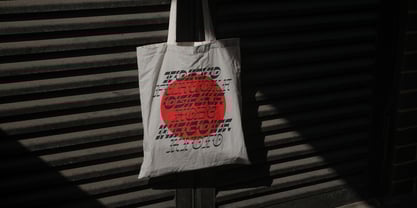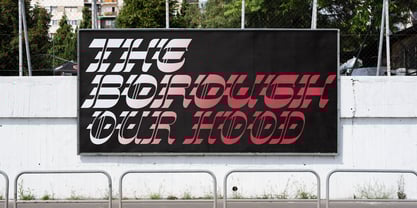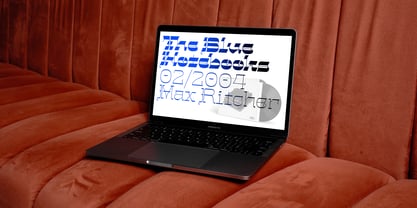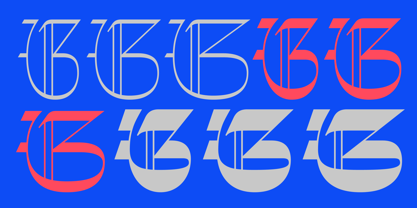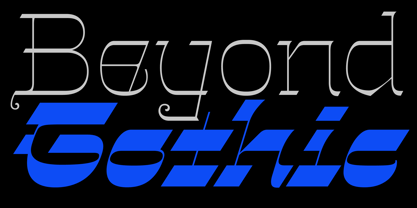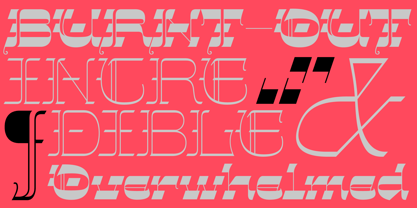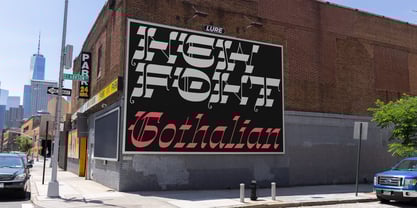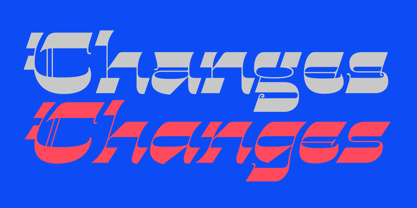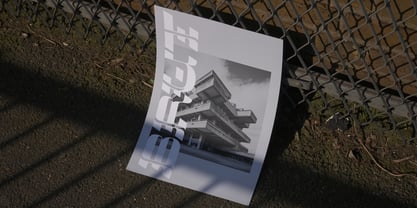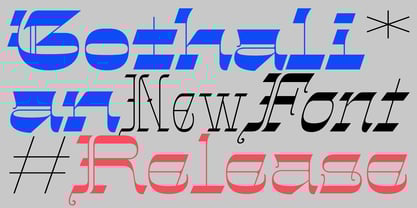
Gothalian
von Sudtipos
Introducing the "Gothalian" font, a blackletter design influenced by the timeless elegance of Victorian ornamentation. This font takes its roots in Henry Brehmer's 1890s metal type published by George Bruce's Son & Co. We have revived the vintage source material with the ornate ironwork of the late 19th century, extrapolating the essence of the past to create a font that showcases a sophisticated and attractive look. The font boasts elaborate details inspired by the Victorian era, combined with a touch of darkness that adds a unique and captivating aura to your designs.
Its unique style makes it stand out and will give your designs a memorable look. The font is available as a versatile variable font and also in 54 static styles: 9 weights, 9 expanded weights, 9 extended weights, and their matching italics. It includes numerous alternates that provide endless design possibilities, along with a full set of characters covering a wide range of Latin-based languages.
The name "Gothalian" is a mix of two terms: "Gothic," which refers to the style of blackletter typefaces that were prevalent in medieval Europe, and "Italian," which describes reversed contrast typefaces in the 19th century. This combination of influences creates a unique and striking aesthetic that captures the essence of both historical styles.
We envision a wide range of uses for the font, including tattoos, headlines, logotypes, book covers, and invitations, infusing your designs with a touch of elegance, history, and mystery. With its Victorian influence over a gothic design, the "Gothalian" font is a harmonious blend of styles that is sure to make a statement in your designs.
The "Gothalian" font's timeless appeal and rich history make it an excellent choice for any design project that seeks to communicate a sense of elegance, sophistication, and individuality. Whether you are working on a classic or modern design, this font is sure to add a touch of intrigue and character, making it a perfect fit for any designer or creative professional looking to make a lasting impression.
Designer: Alejandro Paul
Foundry: Sudtipos